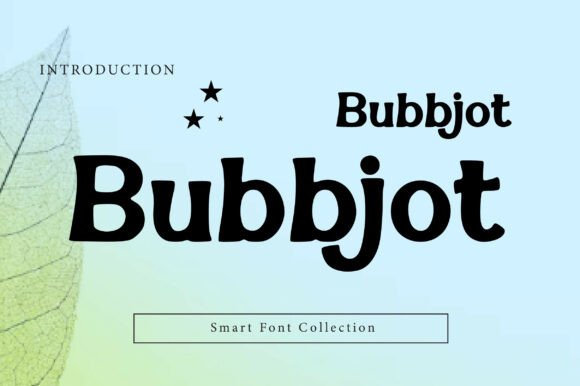
Bubbjot Font: The Playful and Friendly Display Font for Creative Projects
Are you looking for a font that can add a playful and cheerful touch to your designs? Look no further than Bubbjot Font! This chunky handwritten display font is perfect for creating fun and engaging designs for kids, logos, posters, stickers, social media graphics, branding, packaging, and merchandise. In this article, we’ll take a closer look at the Bubbjot Font and explore its features, uses, and benefits.
What is Bubbjot Font?
Bubbjot is a playful, chunky handwritten display font with soft curves, bouncy letterforms, and a friendly cartoon-like personality. Its bold and rounded style makes it perfect for designs that require a fun and energetic vibe. The font is designed to bring a smile to your face and make your designs stand out from the crowd.
Key Features of Bubbjot Font
- Playful and Handwritten: Bubbjot Font has a playful and handwritten feel that makes it perfect for designs that require a personal touch.
- Chunky and Bold: The font is chunky and bold, making it easy to read and perfect for headlines and titles.
- Soft Curves and Bouncy Letterforms: The font features soft curves and bouncy letterforms that give it a friendly and approachable vibe.
- Cartoon-like Personality: Bubbjot Font has a cartoon-like personality that makes it perfect for designs for kids and fun projects.
Uses of Bubbjot Font
Bubbjot Font is a versatile font that can be used for a wide range of creative projects, including:
- Kids Designs: The font is perfect for designing materials for kids, such as children’s books, posters, and stickers.
- Logos and Branding: Bubbjot Font can be used to create fun and playful logos and branding materials for businesses and products.
- Posters and Flyers: The font is great for creating eye-catching posters and flyers for events and promotions.
- Social Media Graphics: Bubbjot Font can be used to create engaging social media graphics, such as Facebook posts and Instagram stories.
- Packaging and Merchandise: The font is perfect for designing packaging and merchandise, such as t-shirts, mugs, and stickers.
Benefits of Using Bubbjot Font
Using Bubbjot Font can bring several benefits to your designs, including:
- Unique and Playful Vibe: The font adds a unique and playful vibe to your designs, making them stand out from the crowd.
- Easy to Read: The font is easy to read, even in large sizes, making it perfect for headlines and titles.
- Versatile: Bubbjot Font can be used for a wide range of creative projects, from kids designs to logos and branding.
- Time-Saving: The font saves you time and effort, as you don’t have to spend hours designing a custom font.
Tips for Using Bubbjot Font
Here are some tips for using Bubbjot Font effectively in your designs:
- Use it for Headlines and Titles: The font is perfect for headlines and titles, as it’s bold and easy to read.
- Experiment with Colors: Bubbjot Font looks great in bright and bold colors, so don’t be afraid to experiment.
- Pair it with Other Fonts: The font can be paired with other fonts to create a unique and interesting contrast.
- Use it for Kids Designs: The font is perfect for designing materials for kids, such as children’s books and posters.
In conclusion, Bubbjot Font is a playful and friendly display font that’s perfect for creative projects that require a fun and energetic vibe. Its bold and rounded style makes it perfect for kids designs, logos, posters, stickers, social media graphics, branding, packaging, and merchandise. With its unique and playful vibe, ease of use, and versatility, Bubbjot Font is a great addition to any designer’s toolkit.